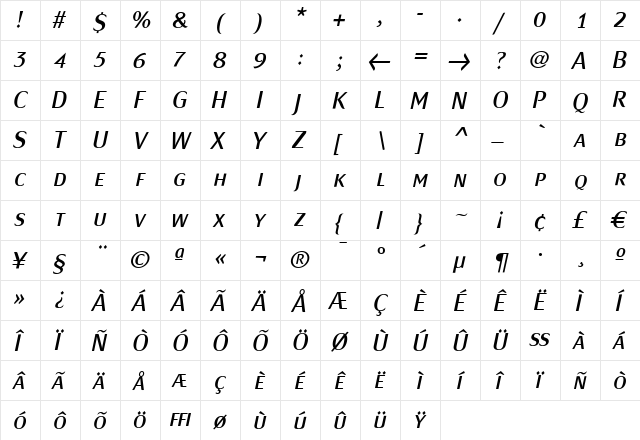
MondialPlus Normal Italic Caps Regular
Design Context for MondialPlus Normal Italic Caps Typeface
MondialPlus Normal Italic Caps offers clean, dependable letterforms without strong stylistic allegiance, making it a practical choice for designers who need flexibility. Its italic angle brings a sense of urgency and motion to the letterforms.
Pro Tip: Try MondialPlus Normal Italic Caps for annotation and caption copy alongside an upright companion — the contrast in angle creates a dynamic but ordered typographic system.